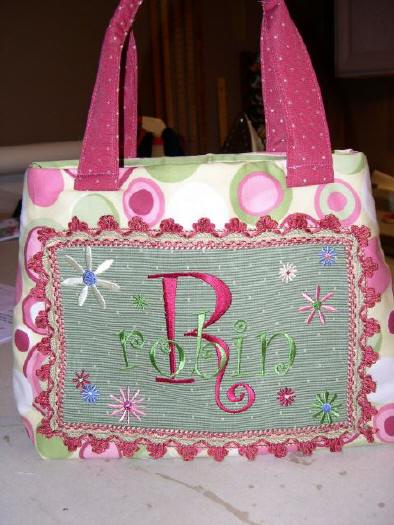
Curlz Fonts - 6 sizes!!
We are digitizing this font to be BIG AND BOLD, like the Curlz fonts you see on our in the hoop projects.  We will send a newsletter when this 'new' Big and Bold style is available.
Curlz, a super cute favorite, it too comes in 5 sizes, complete sets, featuring 3/4", 1", 1.5", 2" and 3" heights.  As a bonus, you will also receive 4 inch Curlz upper case monogram letters in fill stitch, satin stitch and outline stitch.  Terrific assortment for all of your stitching needs!